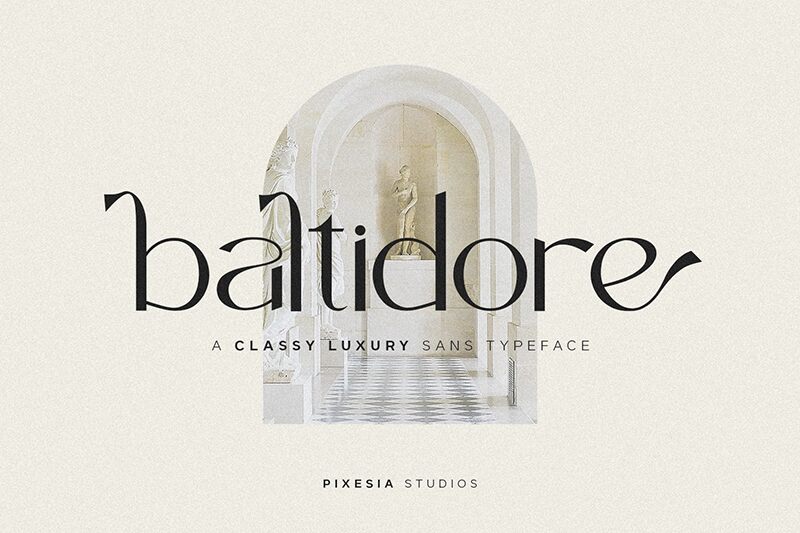
Baltidore
Baltidore font by Pixesia Studio is an elegant and sophisticated script typeface with a refined appearance. Its stylish letters are natural and seamlessly connected, making most of its content easily readable without effort by the user. The use of a calligraphy pen in its creation adds to the modern touch that balances perfectly with elegance.
Use this free calligraphy font in social media posts, cards, invitations, labels, websites, art galleries brochures, magazines covers or other publication covers, branding projects, or movie posters. Other marketing materials include flyers and advertising banners signs or roll-ups.